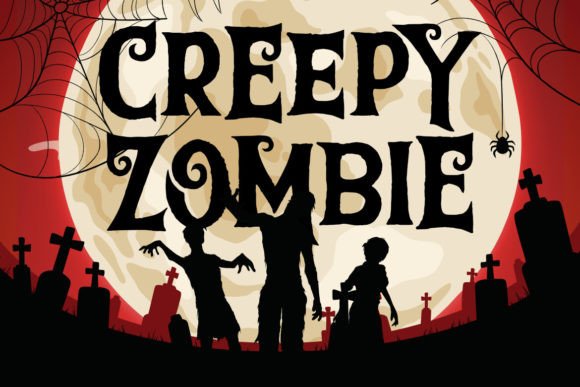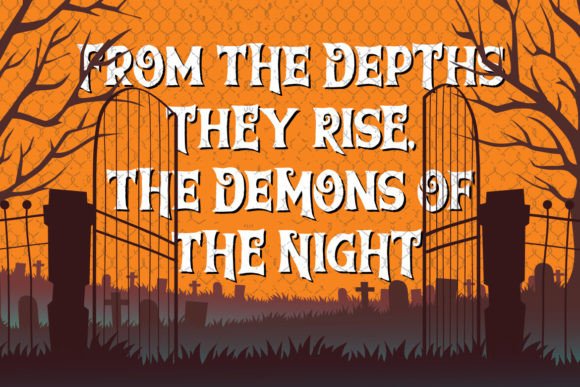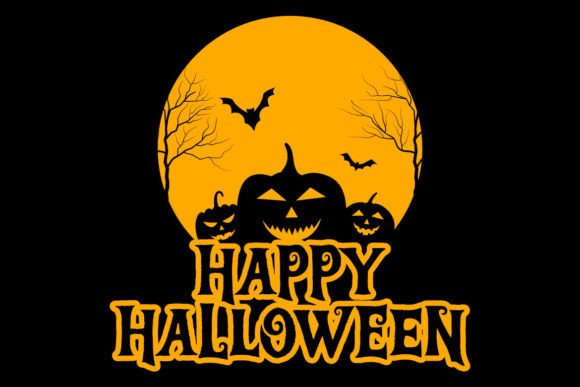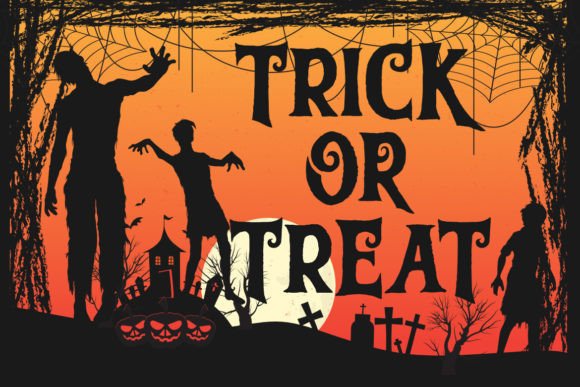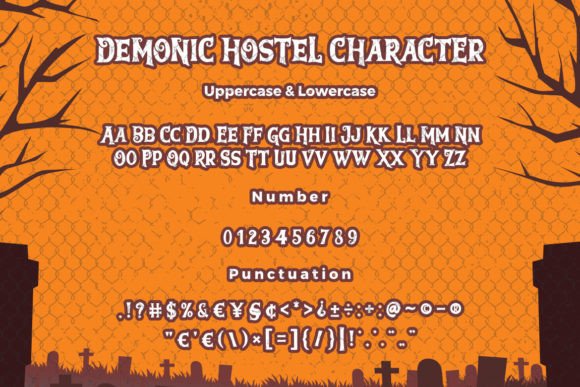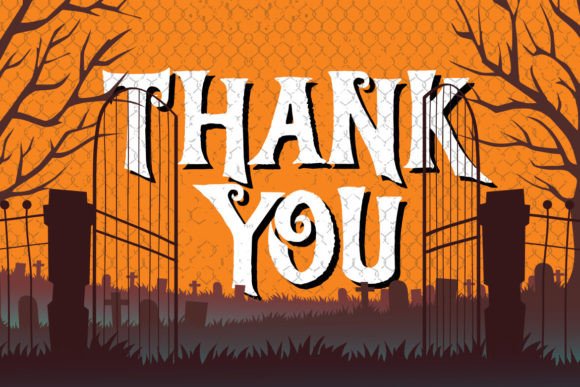
Demonic Hostel: A Bouncy Horror Font for Creative Expression
Are you a designer, craftsperson, or simply a creative individual looking for a unique and captivating font to elevate your visual projects? Look no further than Demonic Hostel, a bouncy horror font that is sure to make your designs stand out. In this article, we’ll explore the features, benefits, and uses of Demonic Hostel, and why it’s a must-have for anyone looking to add a touch of horror and whimsy to their work.
What is Demonic Hostel?
Demonic Hostel is a premium quality font designed to bring a sense of eeriness and playfulness to your designs. With its bouncy and irregular shape, this font is perfect for creating eye-catching and memorable visuals. Whether you’re designing flyers, quotes, posters, banners, packaging, merchandise, logotypes, or anything in between, Demonic Hostel is the perfect choice.
Key Features of Demonic Hostel
- High-Quality Design: Demonic Hostel is crafted with meticulous attention to detail, ensuring a high level of quality and consistency throughout the font.
- Bouncy and Irregular Shape: The font’s unique shape adds a touch of horror and whimsy to your designs, making them stand out from the crowd.
- Versatile: Demonic Hostel can be used for a wide range of applications, from digital designs to print materials.
- Easily Customizable: The font is designed to be easily customized, allowing you to adjust the size, color, and style to suit your needs.
Benefits of Using Demonic Hostel
So why choose Demonic Hostel for your design projects? Here are just a few benefits of using this exceptional font:
- Adds a Touch of Horror and Whimsy: Demonic Hostel brings a unique and captivating element to your designs, setting them apart from more traditional fonts.
- Increases Engagement: The font’s bouncy and irregular shape is sure to grab attention and hold it, making your designs more engaging and memorable.
- Perfect for Horror and Halloween-Themed Designs: Demonic Hostel is ideal for creating spooky and eye-catching designs for Halloween or horror-themed projects.
- Easy to Read and Understand: Despite its unique shape, Demonic Hostel is surprisingly easy to read and understand, making it perfect for use in a wide range of applications.
Uses of Demonic Hostel
Demonic Hostel is an incredibly versatile font that can be used in a wide range of applications, including:
- Flyers and Brochures: Create eye-catching flyers and brochures that grab attention and communicate your message effectively.
- Posters and Banners: Design stunning posters and banners that showcase your brand or message in a bold and captivating way.
- Packaging and Merchandise: Add a touch of horror and whimsy to your product packaging and merchandise, making them stand out on store shelves.
- Logotypes and Branding: Create a unique and memorable brand identity with Demonic Hostel, perfect for horror-themed businesses or products.
In conclusion, Demonic Hostel is a premium quality font that offers a unique and captivating way to elevate your design projects. With its bouncy horror style, versatility, and ease of use, this font is perfect for designers, craftspersons, and creatives looking to add a touch of horror and whimsy to their work. Whether you’re designing flyers, quotes, posters, banners, packaging, merchandise, logotypes, or anything in between, Demonic Hostel is the perfect choice. So why wait? Download Demonic Hostel today and unleash your creativity!